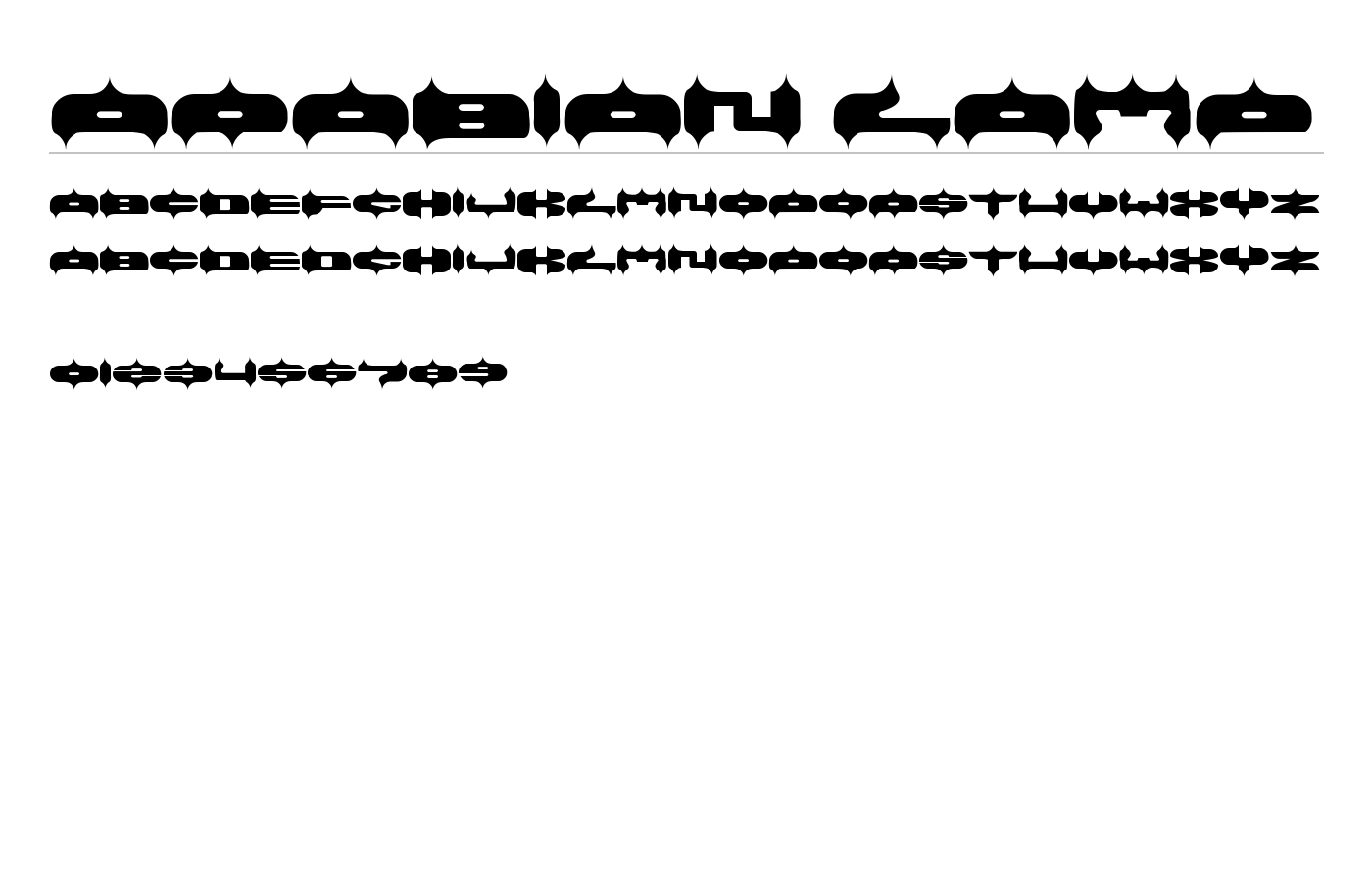
Arabian Lamp is a bold, decorative display font characterized by its thick, blocky shapes and sharp, pointed accents reminiscent of traditional Middle Eastern lantern designs. Its heavy weight and unique, ornamental letterforms create a strong visual impact, making it perfect for logos, headlines, or branding that seeks to convey an exotic, mystical, or cultural vibe. This font works best at large sizes where its intricate details can be fully appreciated, adding a distinctive and artistic touch to creative projects.
ARABIAN LAMP Font
About ARABIAN LAMP Font